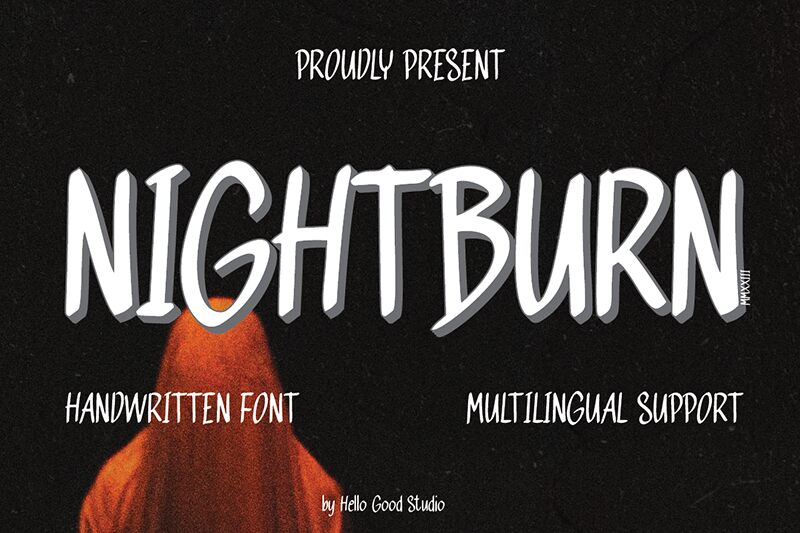
NIGHTBURN
\nNightburn font by Studio Hello Good is a free handwritten font where condensed letters are characterized by a hand-drawn appearance and combined for an expressive style. Enjoy an energetic feel with an urban aesthetic and a contemporary vibe, especially since the dashing letters carry swirling details that effortlessly flow from one point to another.
Allow your work to burn bright each night with your editorial designs including magazine headings, presentations of urban projects and artists, posters, brochures, online posts and ads. You can also capture an intriguing effect for your trendy apparel items and accessory designs like caps or neck scarves with Nightburn.